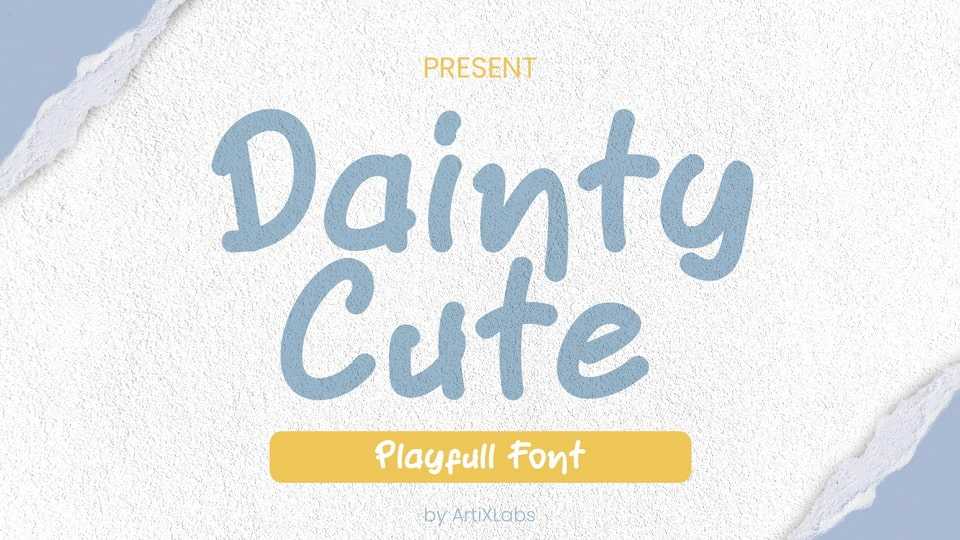
Download Dainty Cute font, a playful hand drawn typeface. This font contains playful, cheerful, creative, professional and unique concept.
Designer: ArtiXLabs